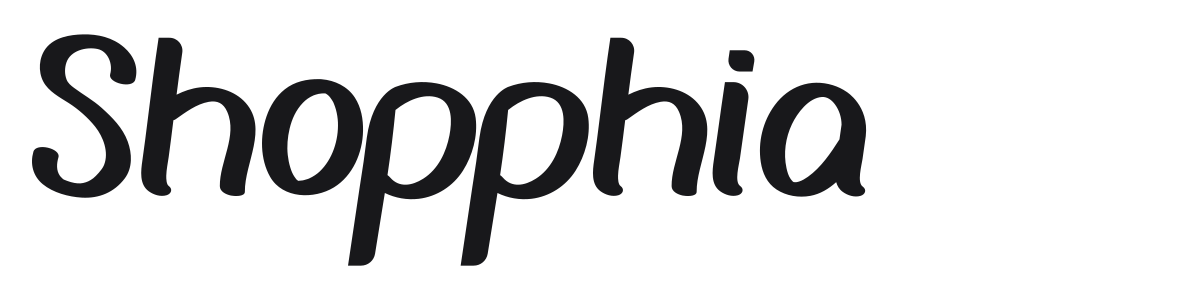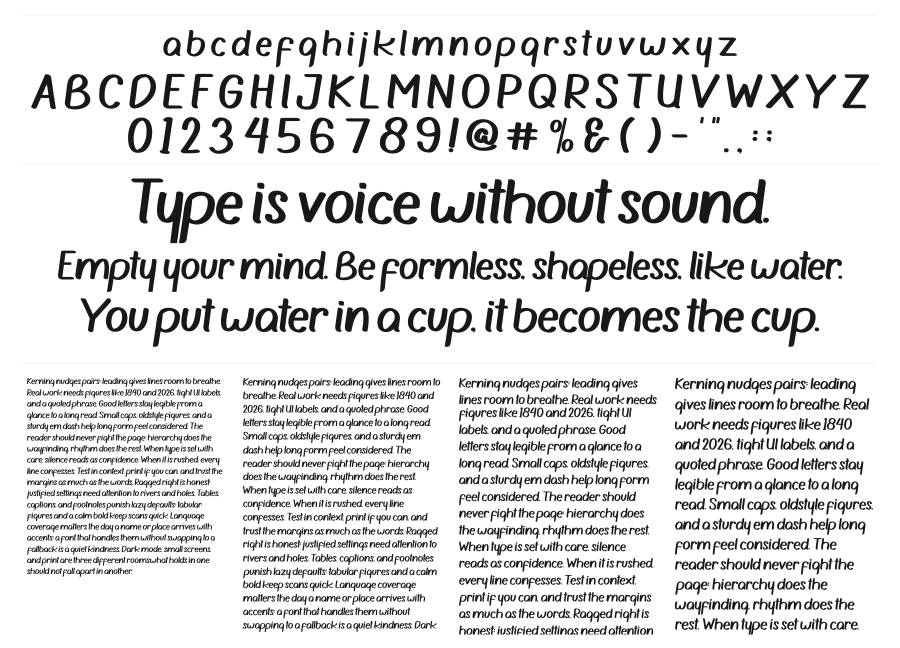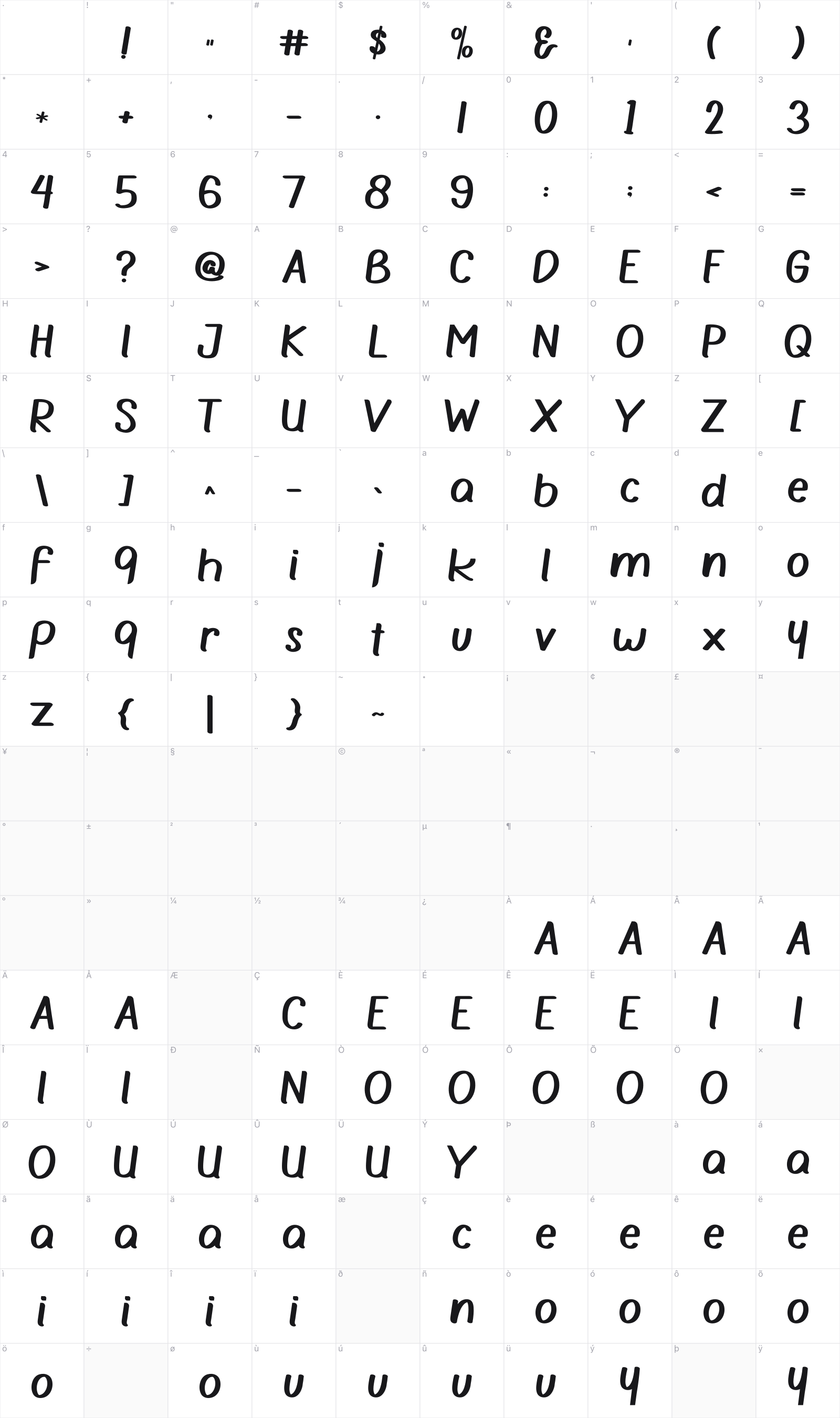
Shopphia
by One Design
Shopphia is a bold casual hand-lettered font with rounded terminals and a relaxed, slightly slanted posture. It bridges the gap between a proper script and a rounded sans, carrying the warmth of a felt-tip marker without sacrificing legibility. The chunky, friendly weight works well on packaging, children's content, and informal branding.